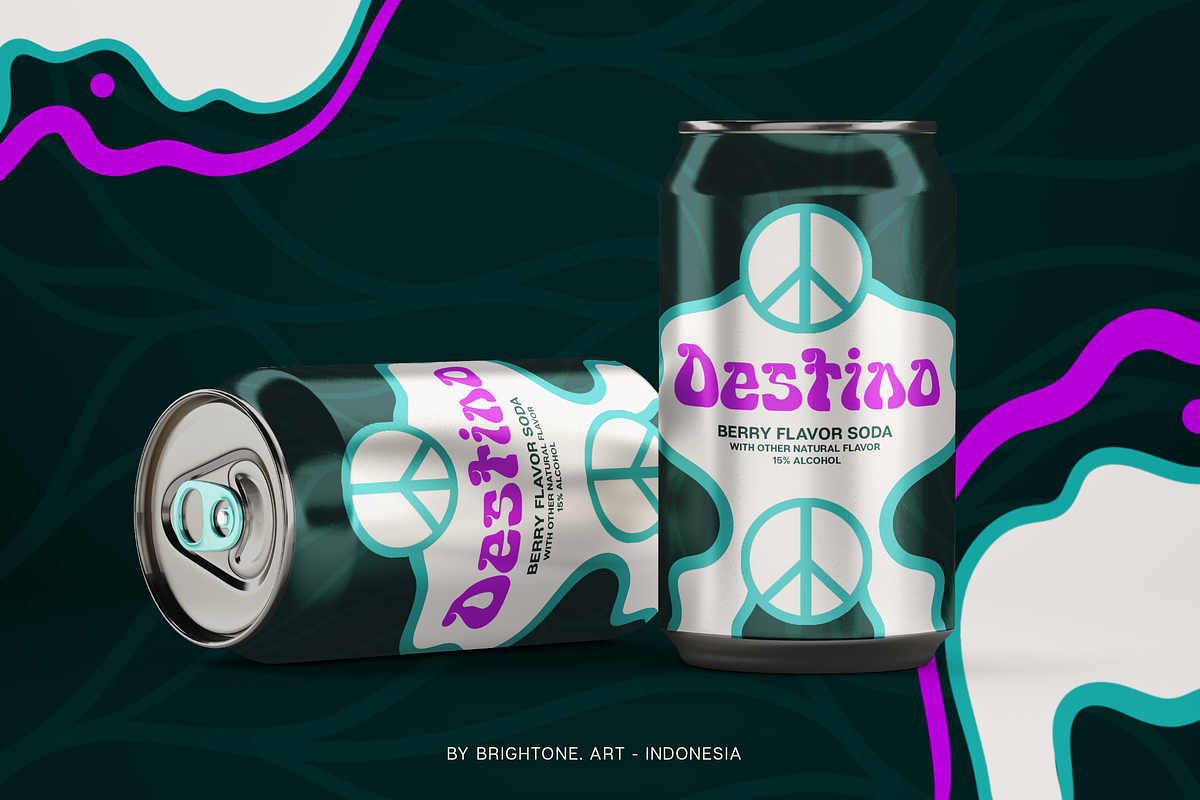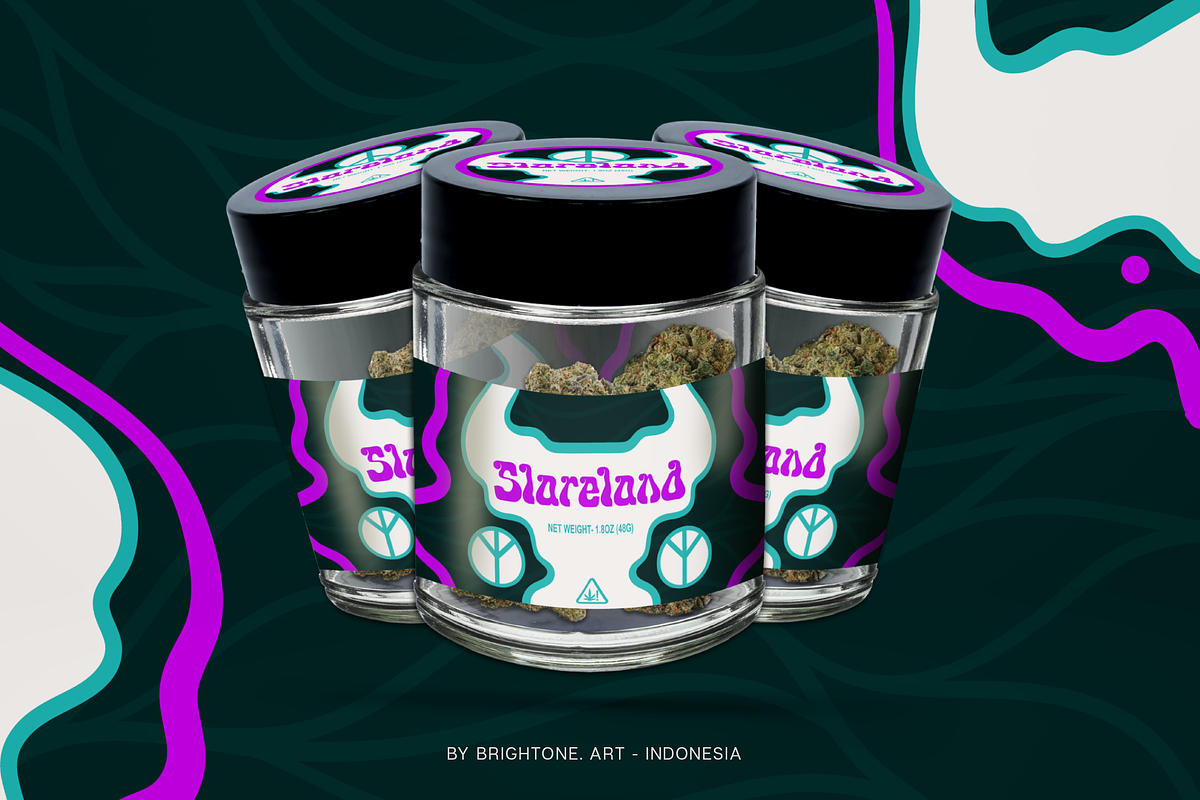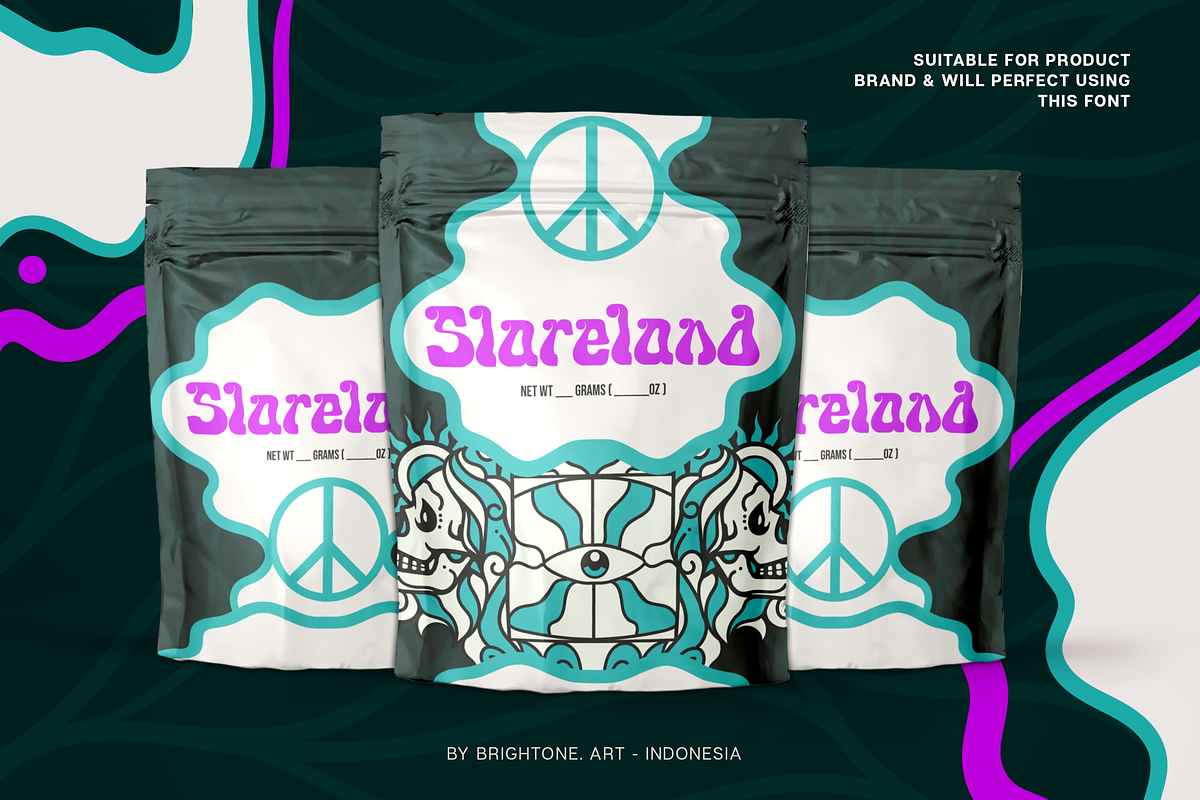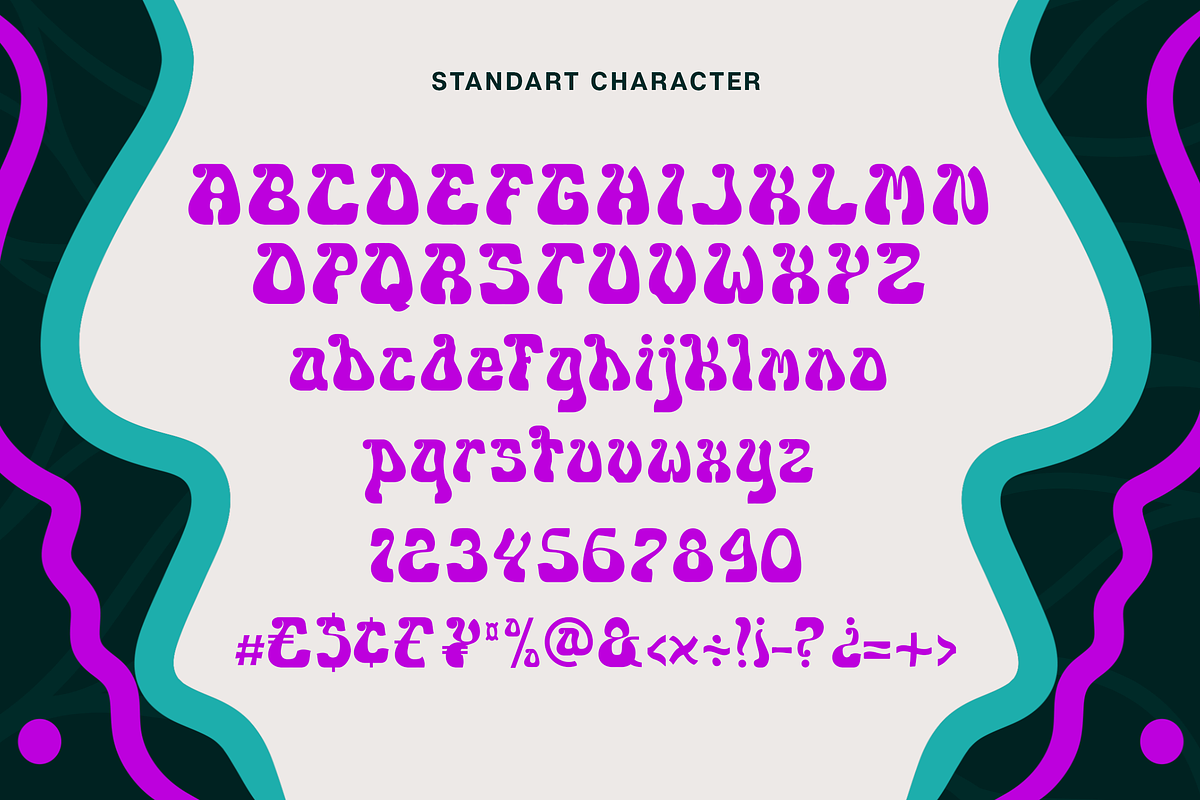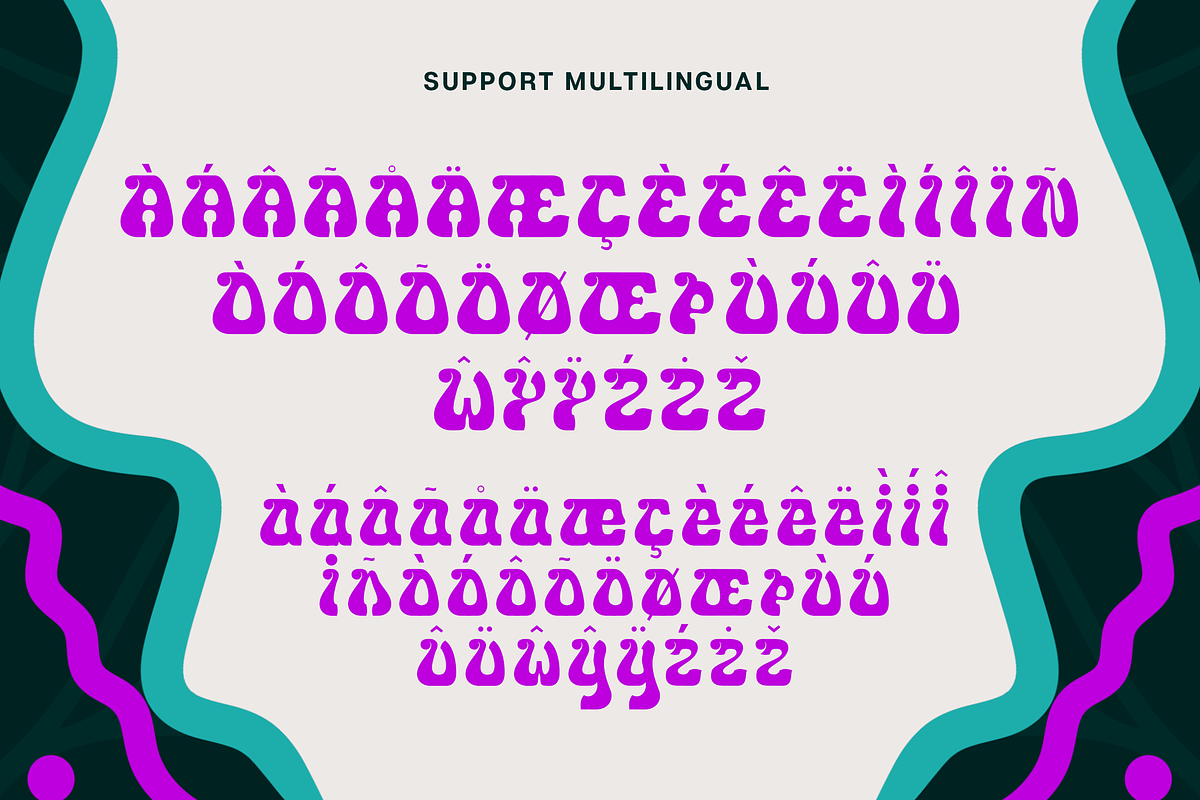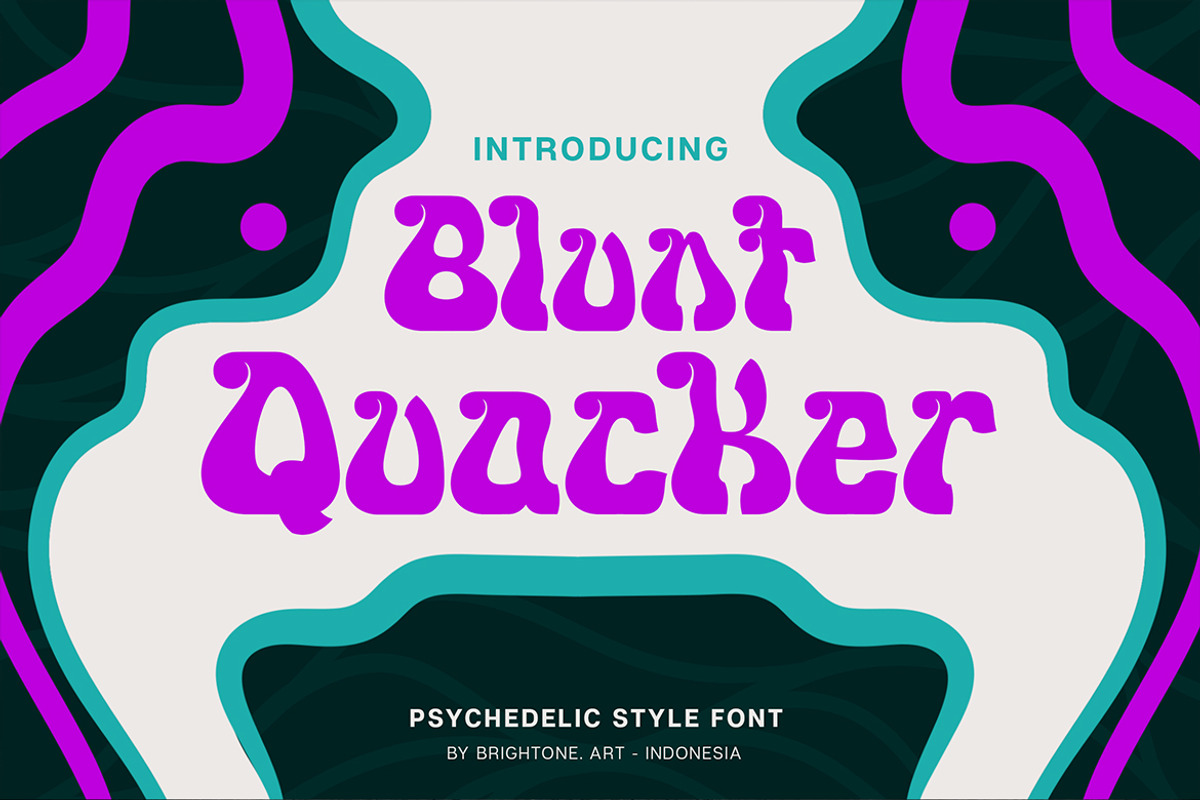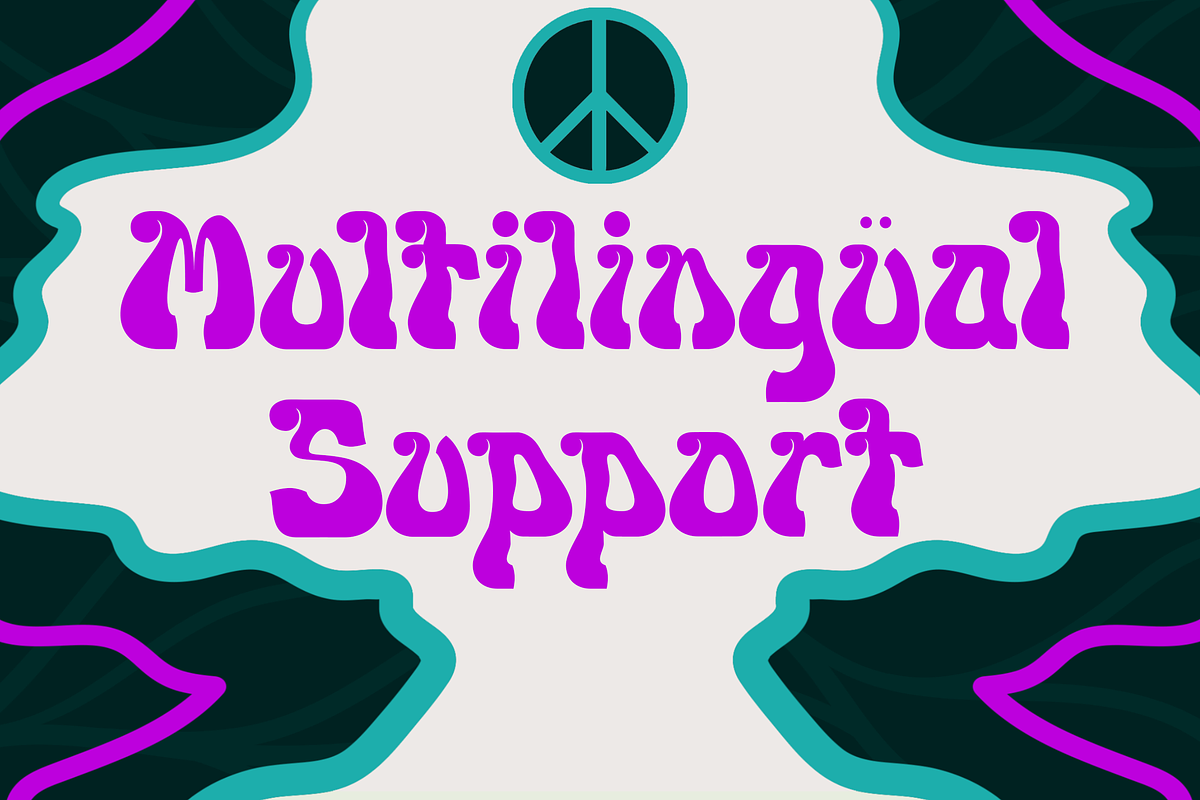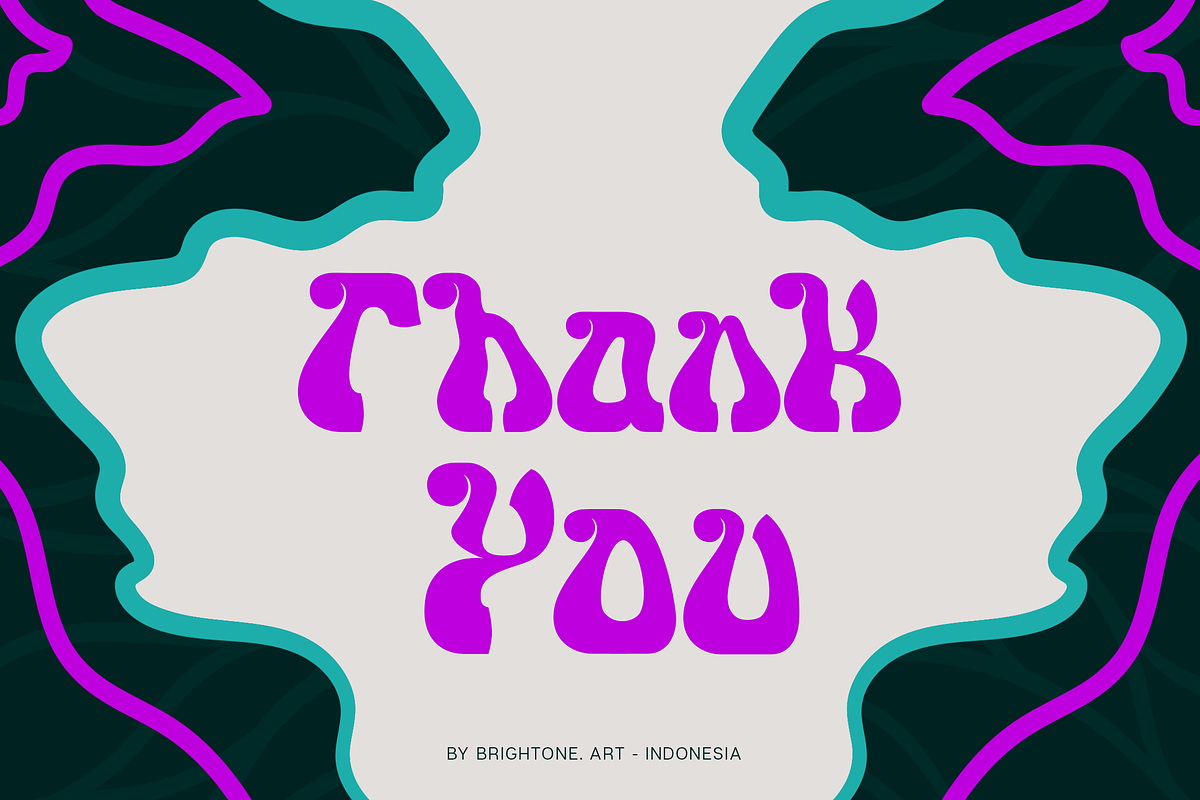
Blunt Quacker - Psychedelic Style
Blunt Quacker is Psychedelic font with good style includes uppercase letters, numerals, a large range of punctuation and multilingual support. Psychedelic style for your logo, posters, pouch bag design , label, sticker, branding for your brand and many more